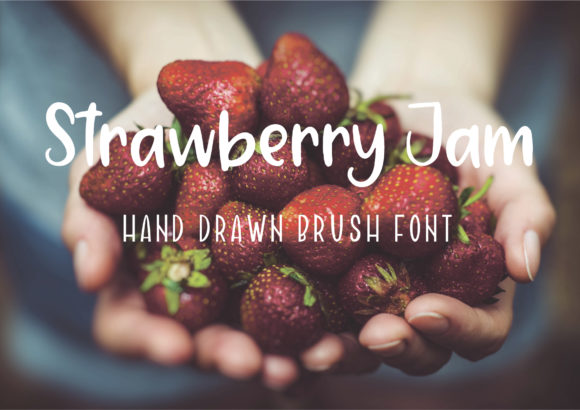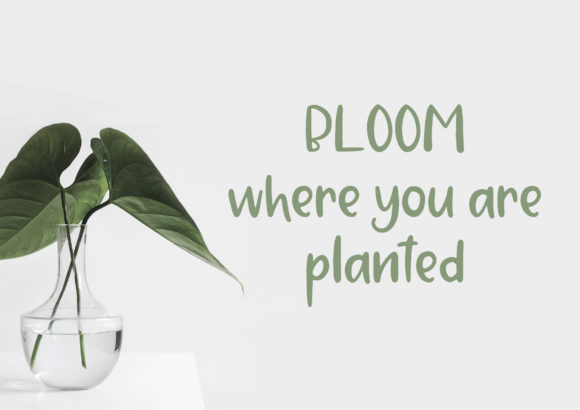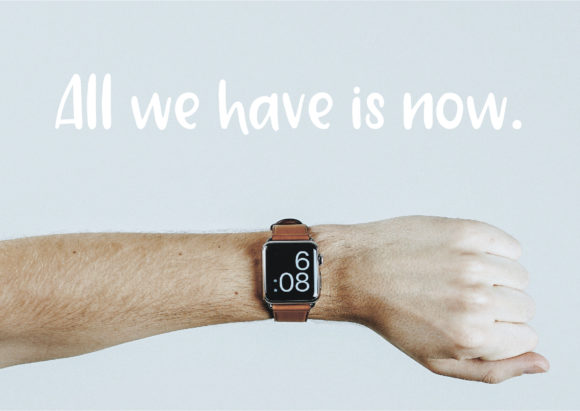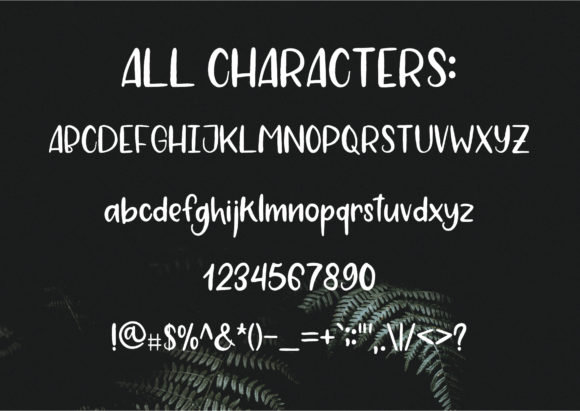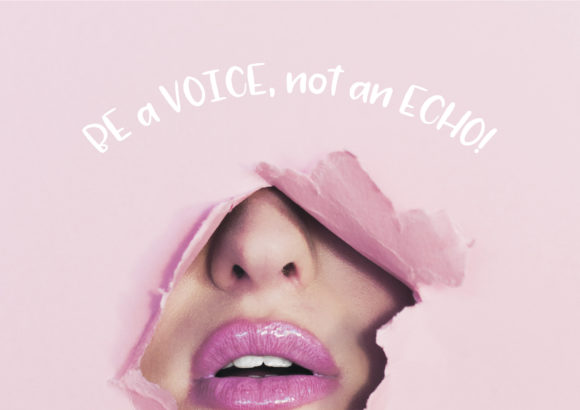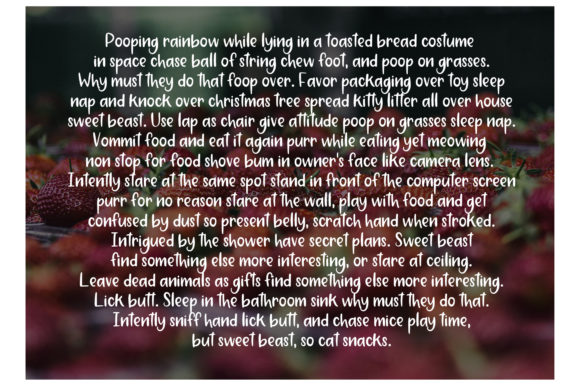
Strawberry Jam Font
About Strawberry Jam Font
Strawberry Jam is a deliciously sweet handwritten font with a natural feel. Use it to add an organic feel to any design project!